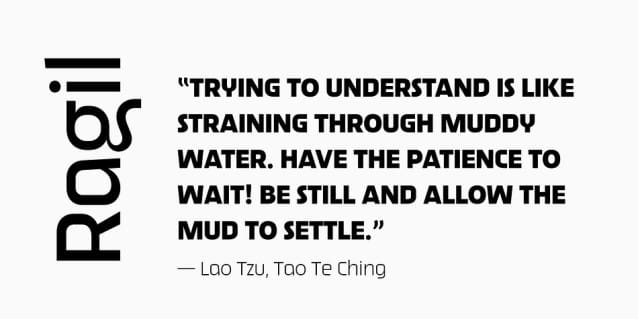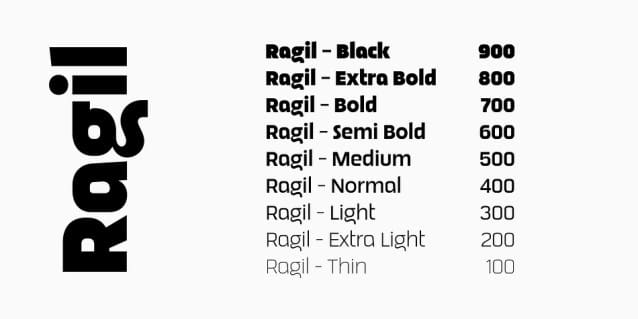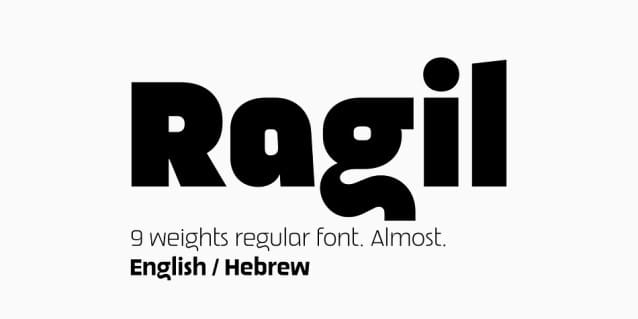
OS Ragil Font Family, A nearly normal 9-weight font family, designed to accommodate Hebrew script. Hat height is shorter than usual. No italics Great for display design, text and logos.
OS Ragil Font Family